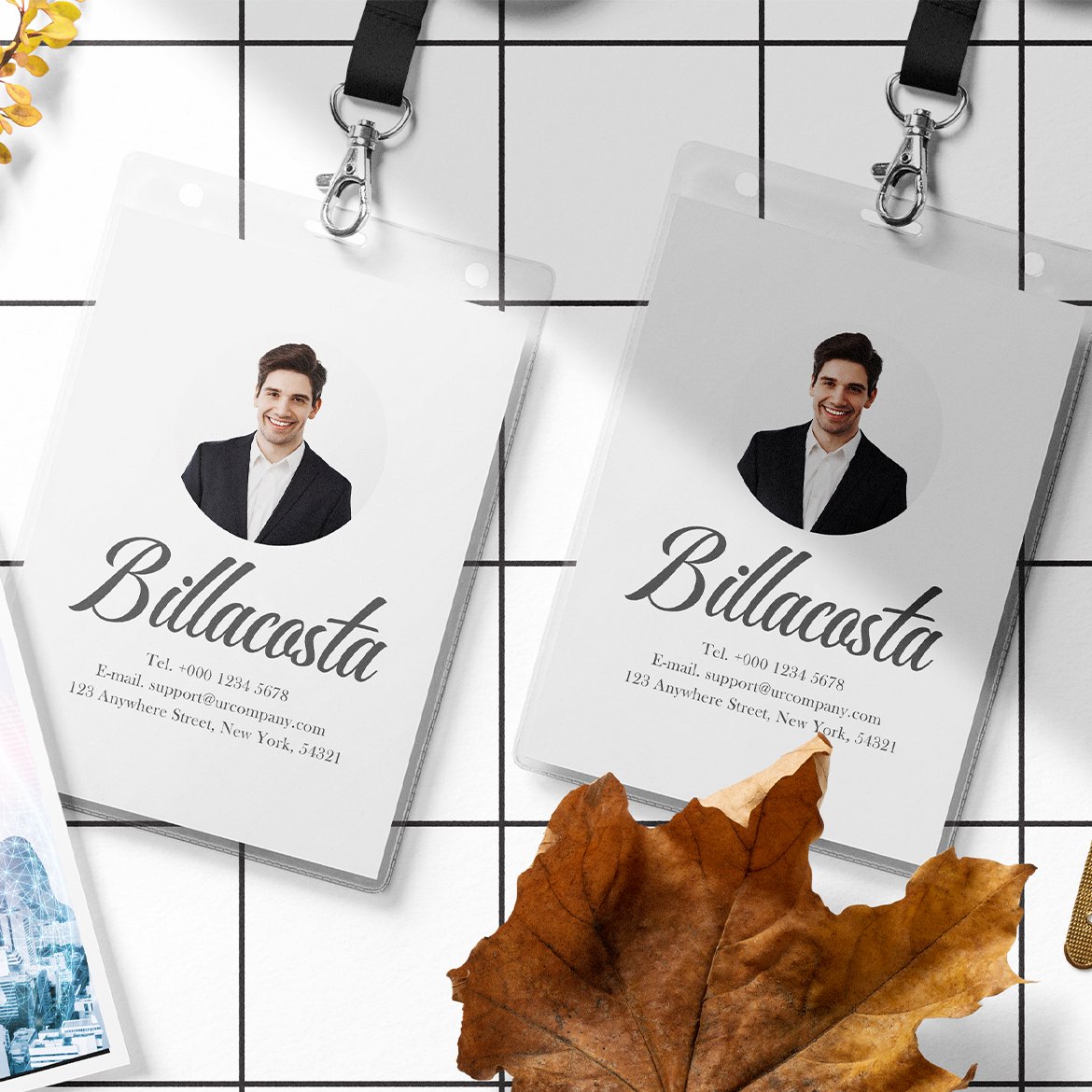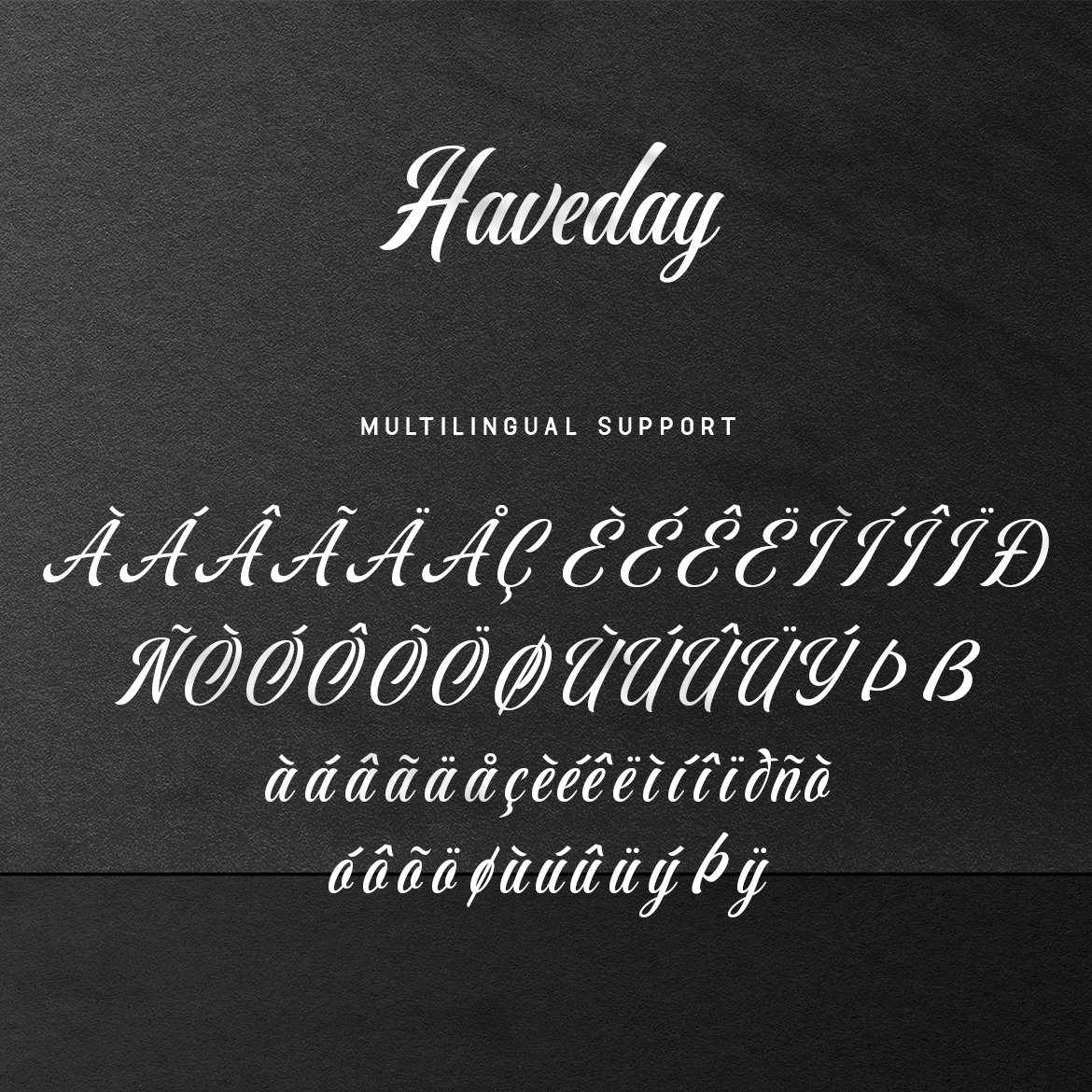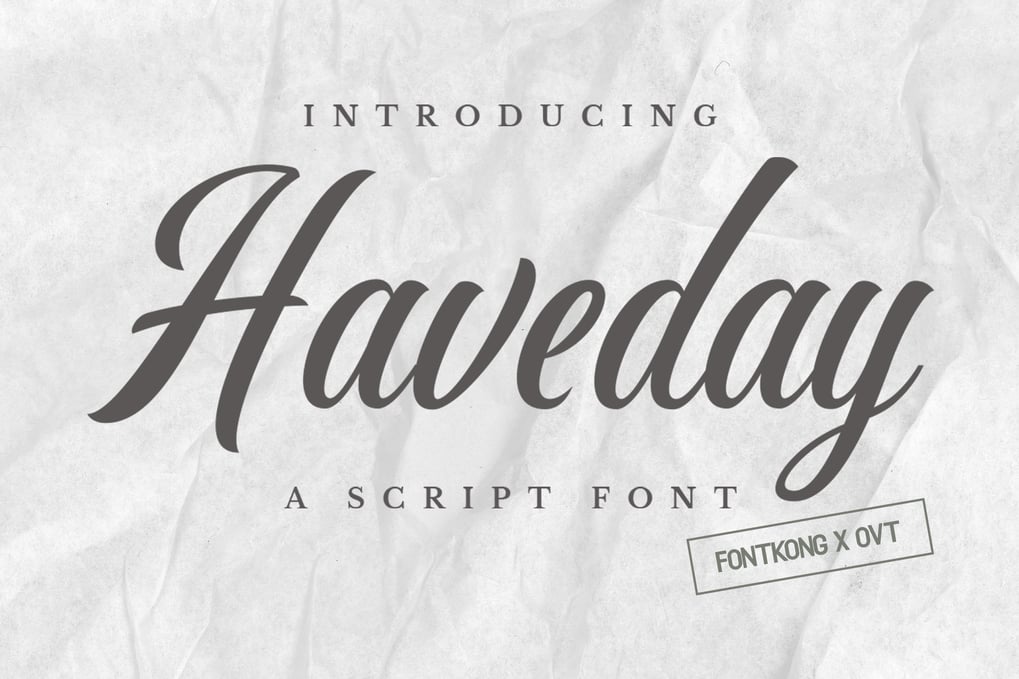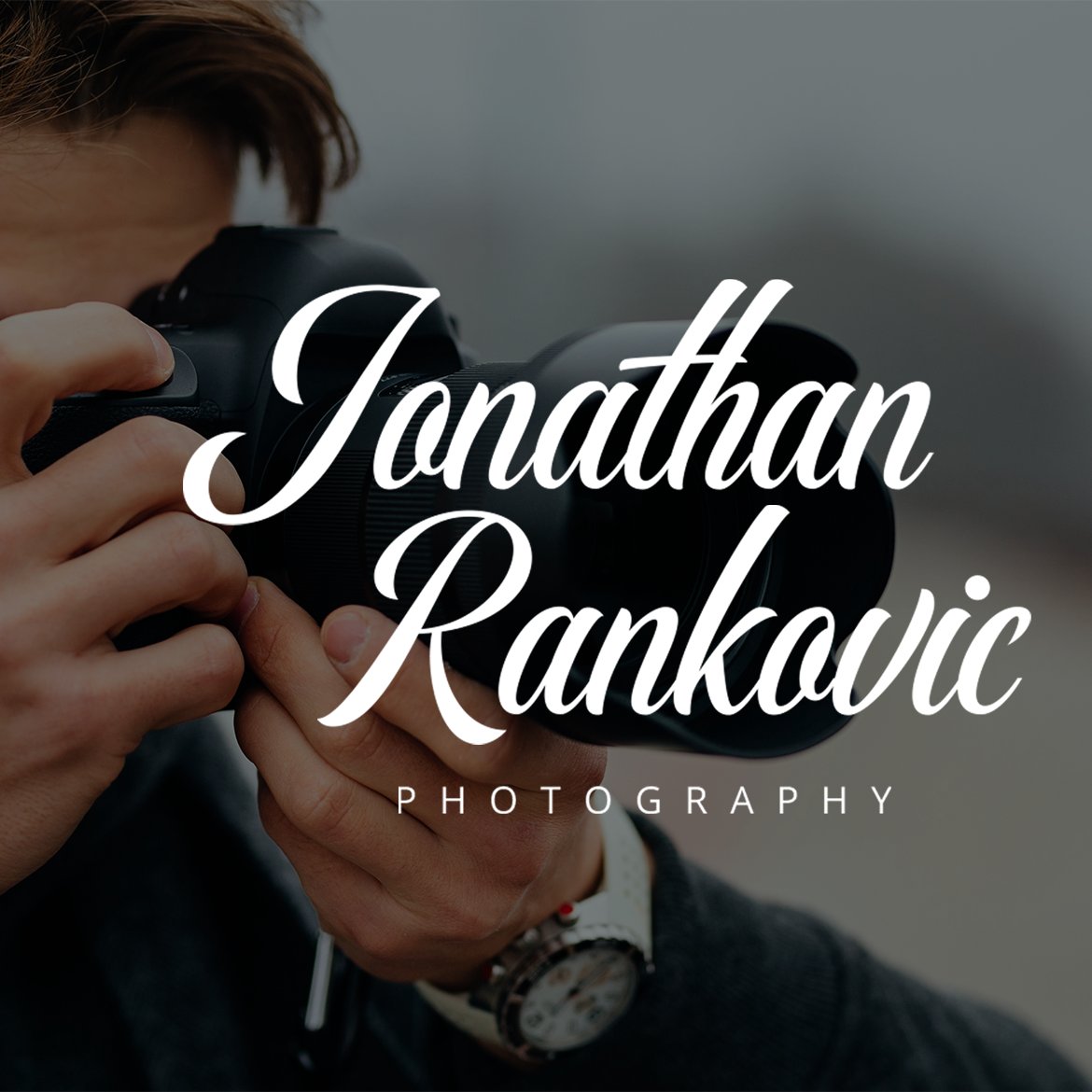
Haveday – Script Font
Introducing “Haveday,” a script font designed to bring elegance and sophistication to your projects. Perfect for designers, stylists, and creatives who want to add a touch of refinement to their work, Haveday offers graceful curves and flowing strokes that capture the essence of beauty in every letter.